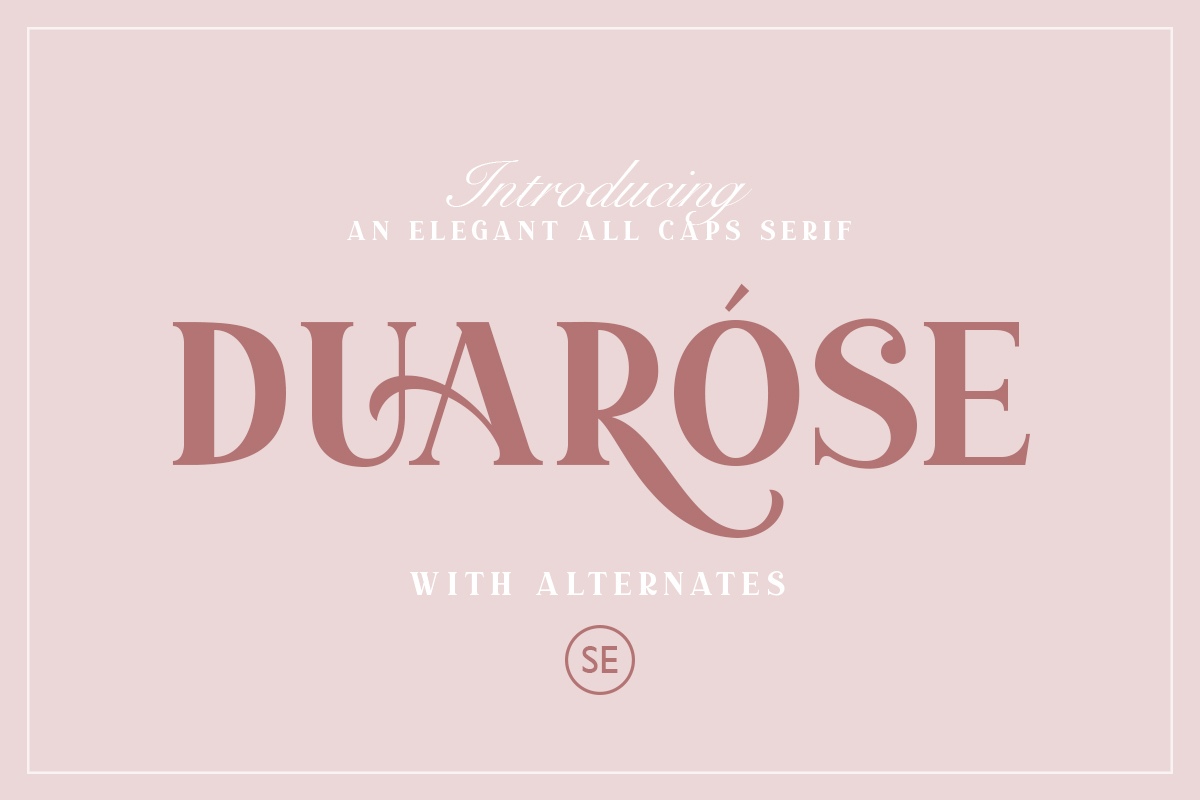
Duarose Font
Duarose Font is perfect for romantic wedding planning, dual-heritage celebrations, elegant couple branding, sophisticated partnership marketing, graceful family communications, harmonious event design, balanced lifestyle campaigns, and refined relationship services.
What makes Duarose Font exciting is its harmonious duality that embodies the perfect balance and elegant unity of two becoming one with romantic sophistication and partnership authenticity. The font features graceful letterforms with dual-inspired proportions and harmonious character that evoke intertwined roses, wedding ceremonies, and the beautiful synthesis of two lives joining together in elegant partnership and romantic unity. Its distinctive dual styling and romantic appeal communicate balance, unity, and elegant partnership, making every message feel blessed by harmonious love and touched by the graceful beauty of romantic duality and partnership elegance.
The Duarose Font family includes regular weight with uppercase and lowercase letters, numerals, punctuation marks, and special characters. Premium versions often feature romantic alternates and dual elements that enhance the harmonious, elegant aesthetic perfect for wedding and partnership applications.
This elegant romantic typeface brings instant harmony and partnership credibility to any dual-focused project. Duarose Font Free Download offers exceptional value for wedding businesses and relationship services seeking to communicate romantic unity, elegant partnership, and harmonious love to couples and romance-focused audiences.
The harmonious character of Duarose Font makes it particularly valuable for wedding planners, couple's counseling services, and romantic venue operators. Its excellent readability ensures partnership messaging and romantic communications remain clear while maintaining the distinctive dual aesthetic that appeals to couples seeking elegant unity experiences and harmonious romantic services.
Romantic partnership marketers appreciate how Duarose Font effortlessly conveys unity authenticity and elegant harmony. The font's graceful proportions and dual details create beautiful brand materials that establish emotional connections with audiences who value romantic partnership, elegant unity, and the harmonious beauty of dual love and partnership elegance.
The versatile harmony of this typeface extends to couple's retreats, partnership coaching, and dual-celebration services where romantic authenticity enhances relationship credibility and partnership appeal. Duarose Font Free Download provides creative professionals with an essential tool for developing memorable, unity-driven designs that resonate with audiences who embrace romantic partnership, elegant duality, and the graceful harmony of dual roses blooming together in their romantic and relationship experiences.